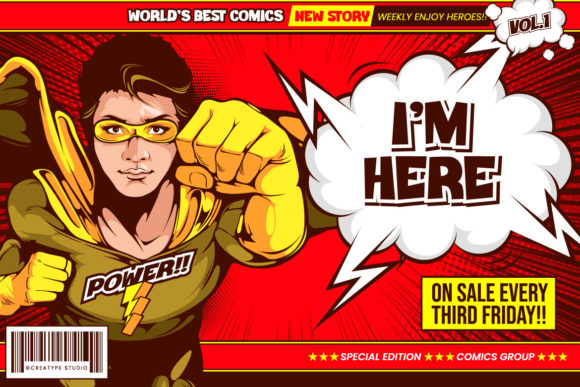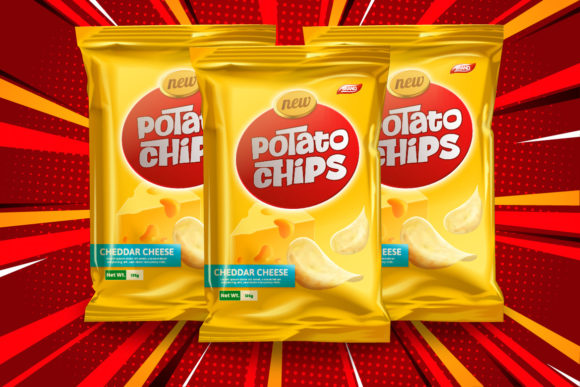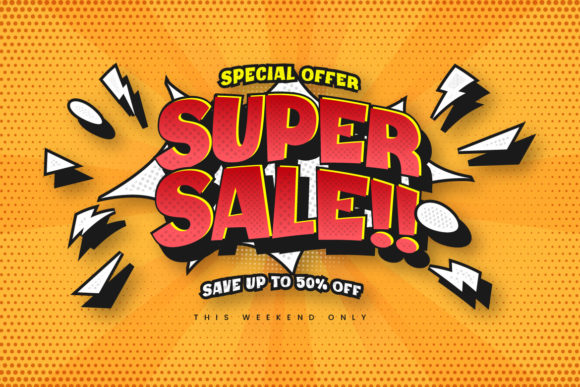
Introduction to Punchline Font
Have you ever stared at a blank canvas, trying to come up with the perfect design for a creative project, only to have a burst of inspiration hit you when you least expect it? For designers, those “aha” moments are what make the job truly rewarding. And that’s exactly what we’re excited to share with you today – the Punchline Font, a fun and quirky display font that’s sure to bring a smile to your face.
With its unique and playful style, the Punchline Font is the perfect design resource for any project that needs a dash of whimsy. Whether you’re creating a poster, social media graphics, or even a logo, this font is sure to add a touch of personality to your work. Plus, with its transparent background and high-quality design, you can be sure that your creative project will stand out from the crowd.
Key Features of Punchline Font
- High-quality design resource ideal for creative projects requiring a unique touch.
- Transparent background option allows for seamless integration into various design elements.
- Supports a range of languages, making it a versatile design resource for global creative projects.
- Unique characteristics include a bold, modern design aesthetic and customizable font styles.
Honest Review: Punchline Font
I recently stumbled upon the Punchline Font, and I must say, it’s been a game-changer for my creative projects. The font is available for free download, which is a huge plus for designers like me who are always on the lookout for high-quality design resources.
- ✨ Highly customizable: The Punchline Font comes with a range of styles and weights, making it easy to find the perfect fit for my project.
- ✨ Transparent background: This feature allows me to create seamless designs without any background clutter.
- ✨ High-quality design: The font is well-designed and looks great on various devices and screens.
- ⚠️ Not ideal for complex typography: While the font looks great for basic text, it can struggle with complex typography and large amounts of text.
Overall, I’m really impressed with the Punchline Font. Its versatility, high-quality design, and transparent background make it an excellent addition to my design toolkit. If you’re a designer looking for a reliable free font, I’d definitely recommend giving it a try.
The Punchline Font is ideal for creating eye-catching designs for social media, advertising, and marketing materials. Its high-quality design makes it perfect for creative projects that require a unique and modern look.